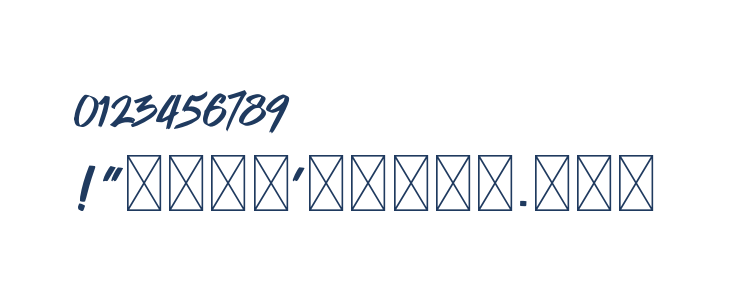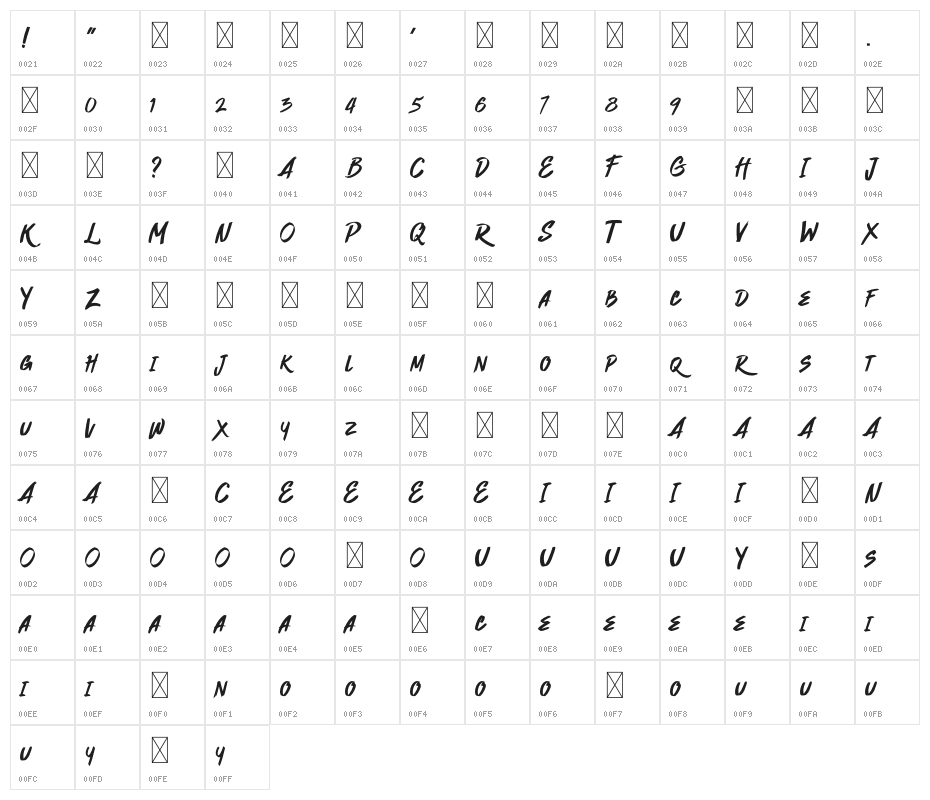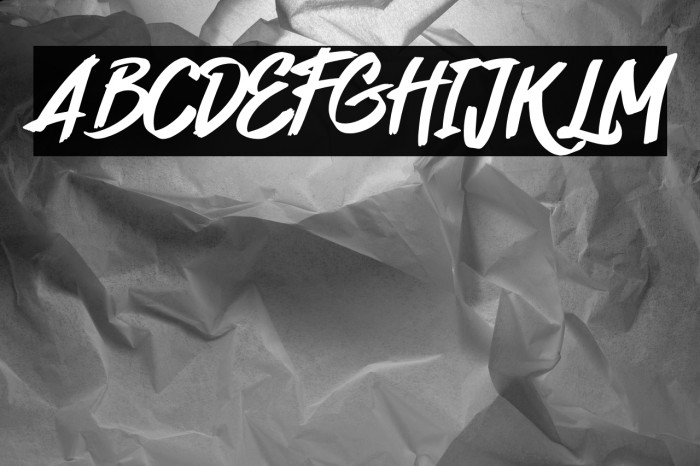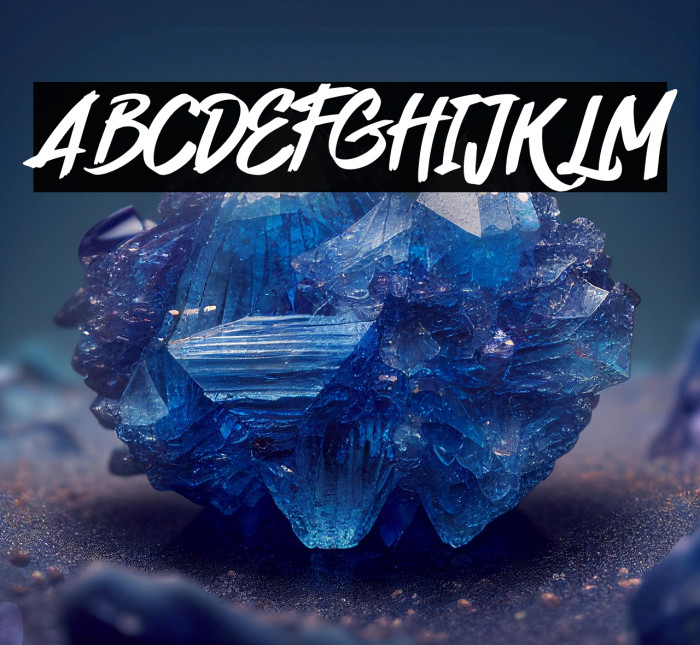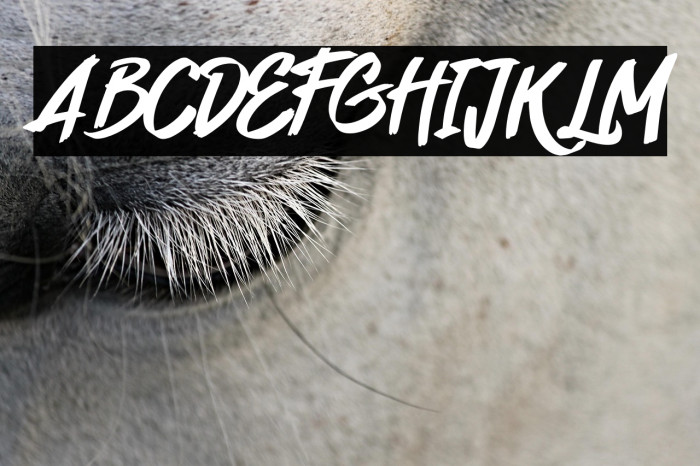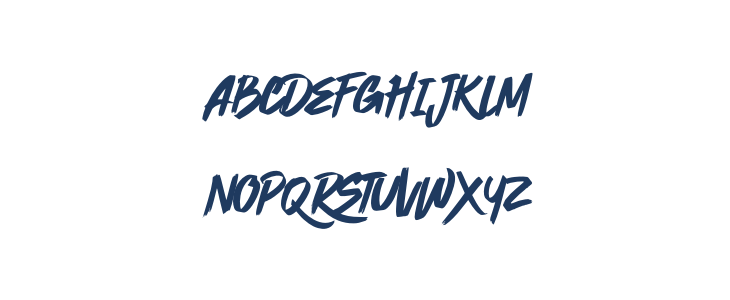
Quickzag Font
Quickzag Description
This font features a bold and dynamic script style, characterized by its thick, flowing strokes and energetic appearance. The letters are interconnected, giving it a cohesive and fluid look. The uppercase and lowercase letters maintain a consistent style, with a slight slant that adds to its lively and informal feel. The numerals are equally bold, matching the overall aesthetic. This font is ideal for projects that require a strong, impactful presence, such as branding, posters, or headlines. The lack of special characters limits its use to primarily alphanumeric content.
| Proposed Projects | Ideal for branding, posters, headlines, and any project needing a strong, impactful presence. |